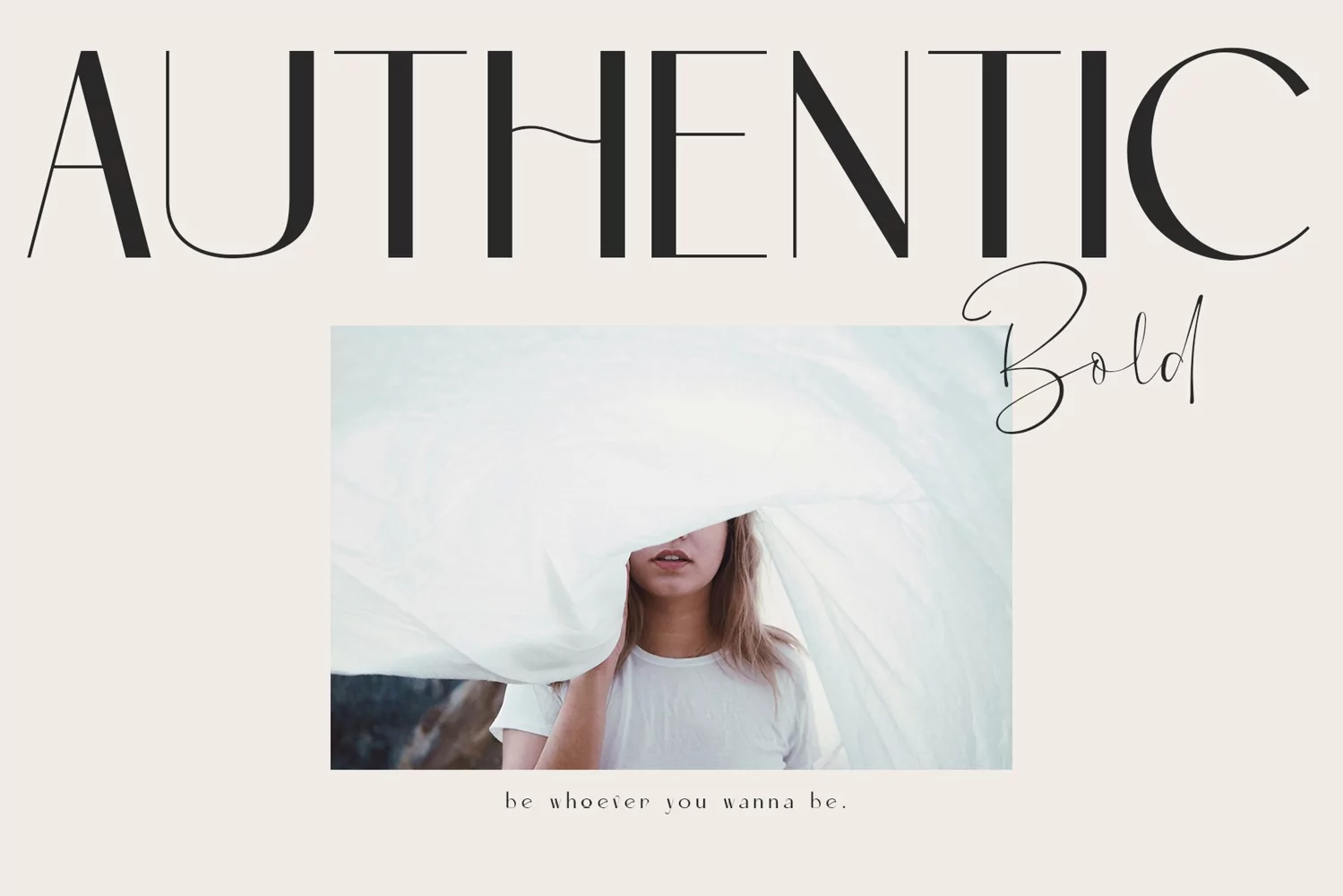
Deisch - Modern Serif Font
Deisch is a Modern Serif font, it has a elegant, classy look but modern and beauty.
Deisch is great for wedding invitation, card designs, advertisements, product designs, stationery, product packaging, quotes and so on.
Deisch Font also supported with extra character that include : standard ligatures and alternate characters
that will help you get beautiful style with your own creation.